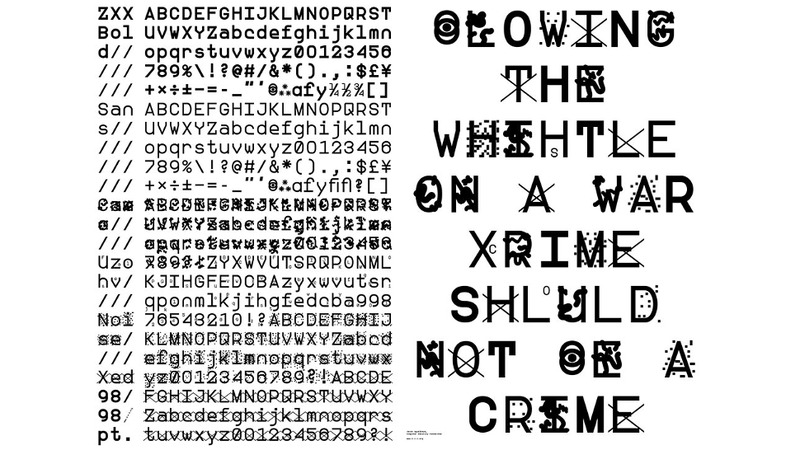
If people are snooping on your textual communications and you don’t like it, there are a couple of things you can do. You can try to block the prying eyes, you can stop saying things you don’t want to be seen, or you can make your messages make no sense to the outside. The anti-authoritarian typeface ZXX is shooting for that last one.
Named ZXX after the Library of Congress’s three-letter code for books found to contain “no linguistic content,” the weird typeface was designed by Sang Mun to be unreadable to very specific type of spy: a computer.
A graduate from the Rhode Island Schoold of Design, Mun designed each one of his ZXX fonts—Camo, False, Noise, and Xed—to fool computer text-recognition systems in its own unique way, while still remaining relatively readable to the human eye. Some of the tactics are pretty clever.
But would this really work? Well no. Not at all, and there’s a whole number of reasons why. The NSA’s spying in particular has to do with stuff that’s already digital, so font choice is moot. This would only help disguise text from a security camera, for example. And even then, all it takes to decode one of these “secret messages” is a human. There are plenty of those around. It’s a far cry from encryption.
Instead, it’s more of a design exercise in bending over backwards to try and avoid the ease of interpretation that we tend to look for in communication when it relates to computers, but preserve it when it comes to meatbags. ZXX is available for free download if you’re looking to print up some posters you don’t want CCTV cams or Google Glass to be able to scan. [Walker Blogs via Motherboard]